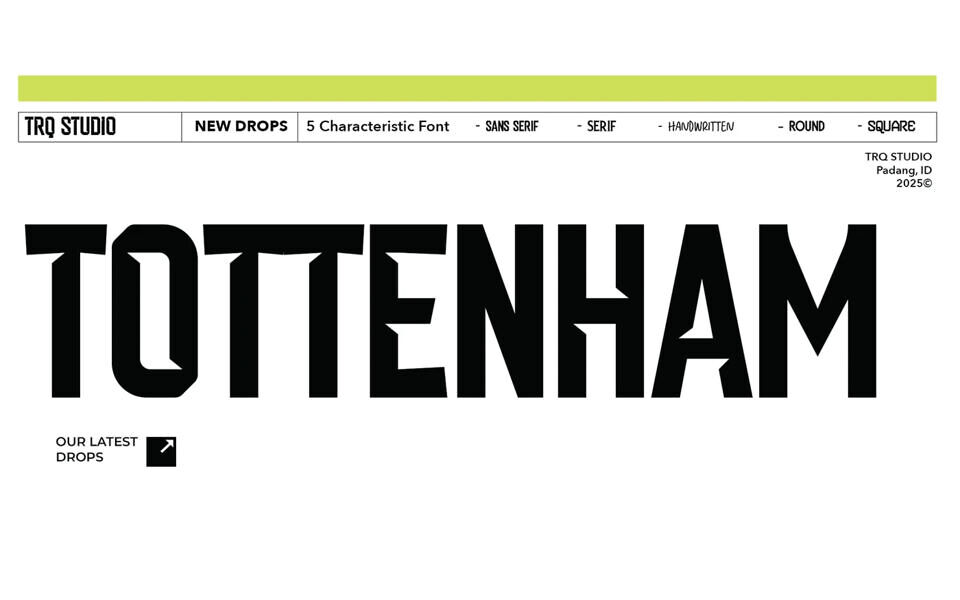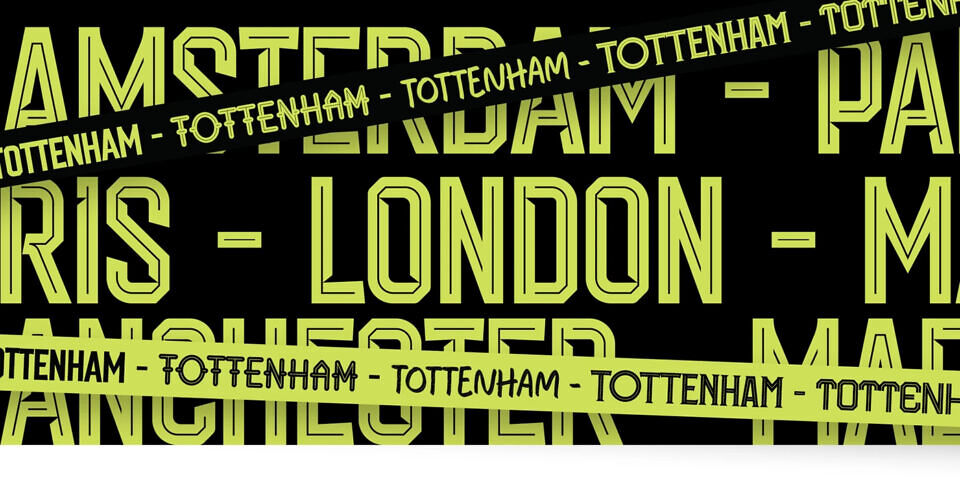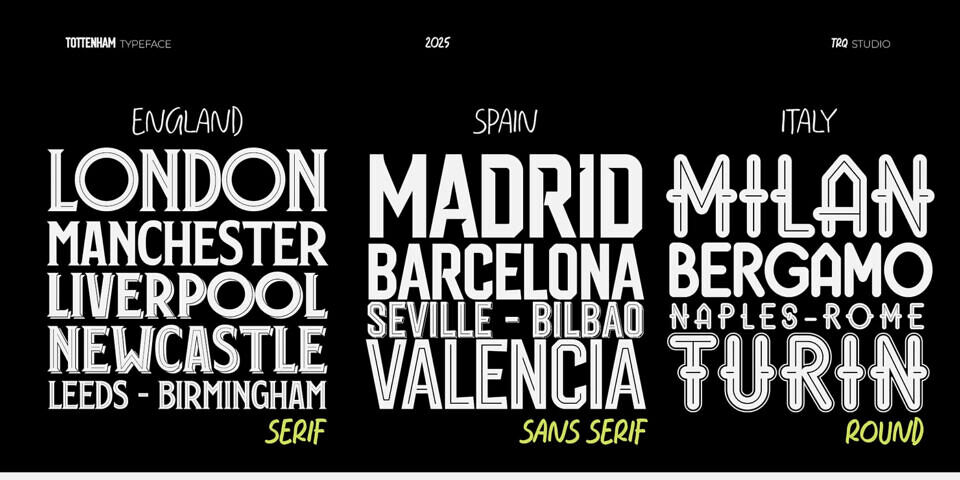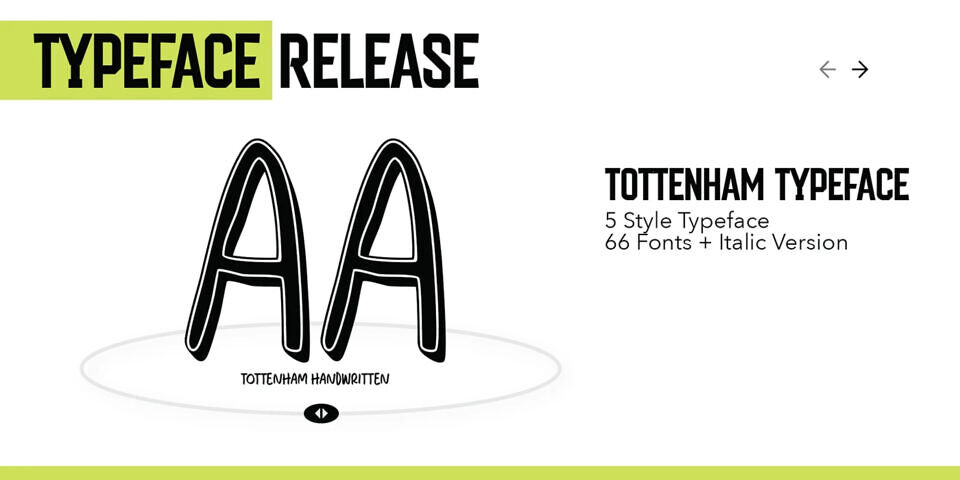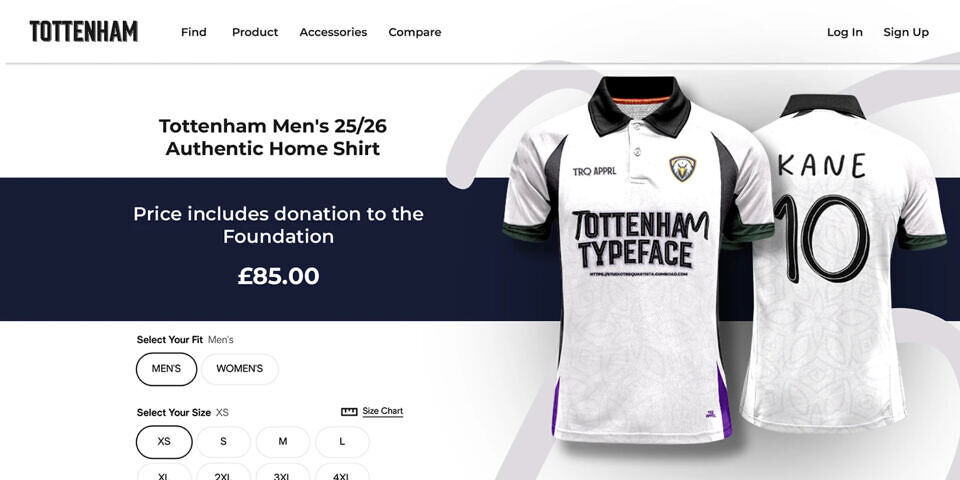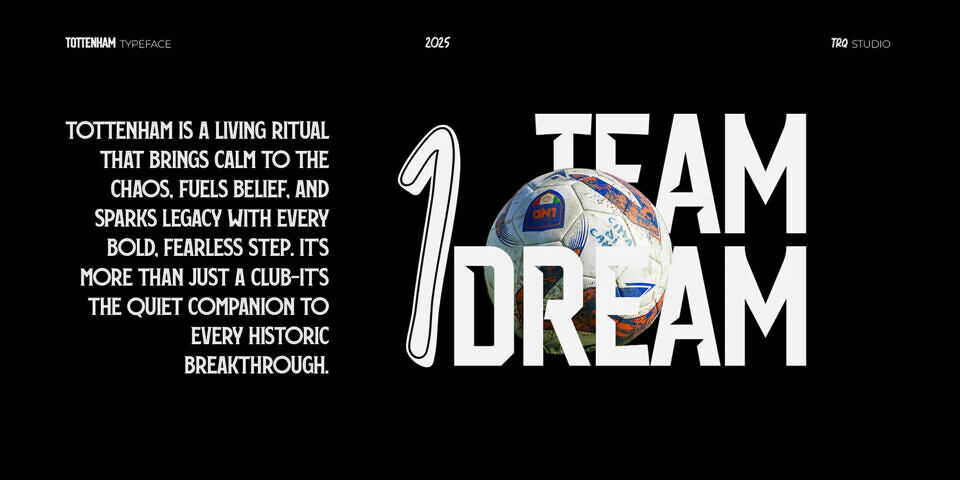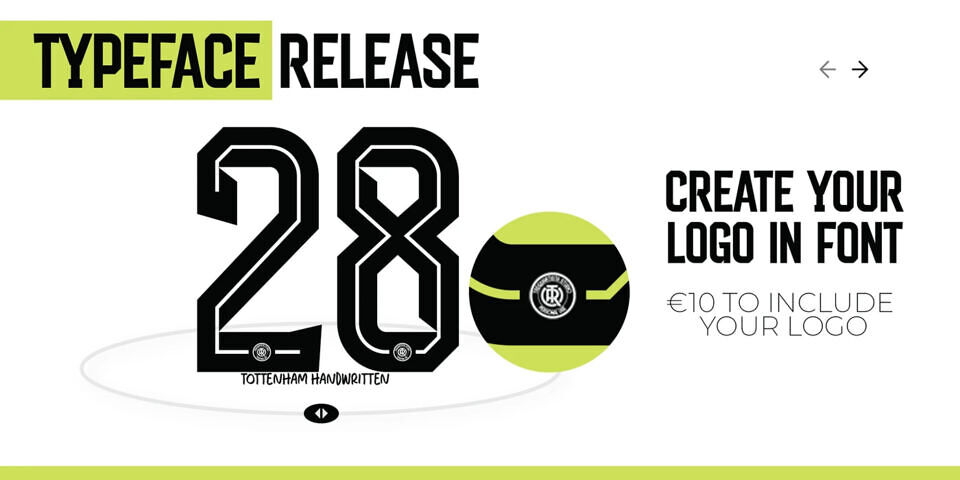
Tottenham Font
Tottenham Font offers a modern and versatile sans-serif style. It comprises five distinct styles—Personal 1 through Personal 5—each featuring 199 to 216 characters, making it suitable for various design applications.
Designed by: Trequartista Studio